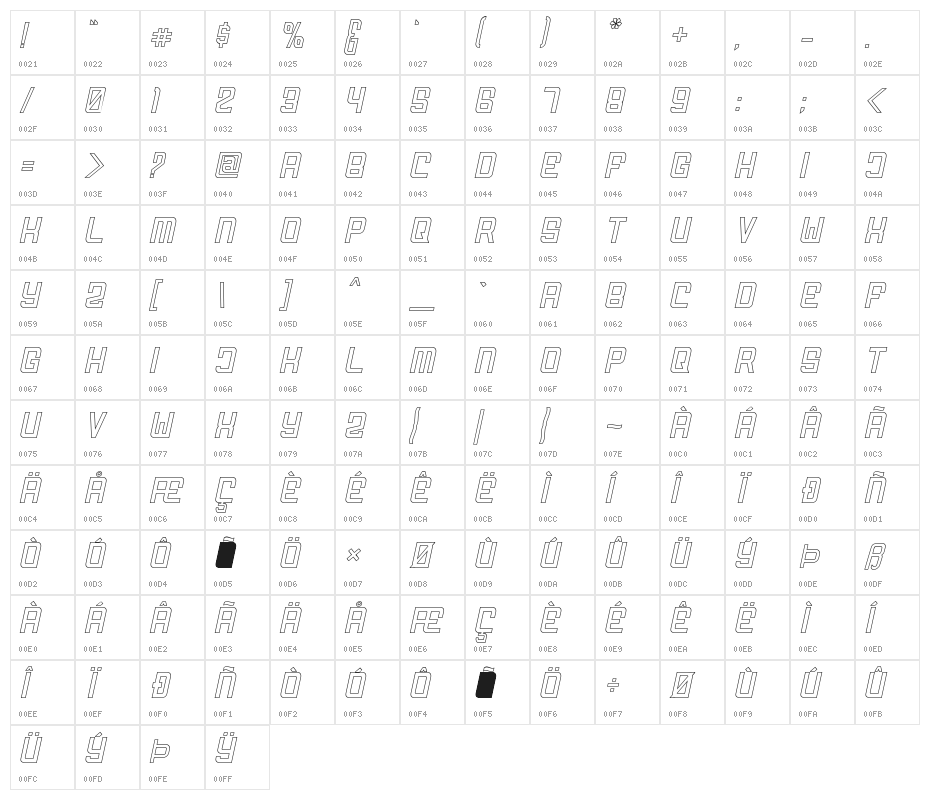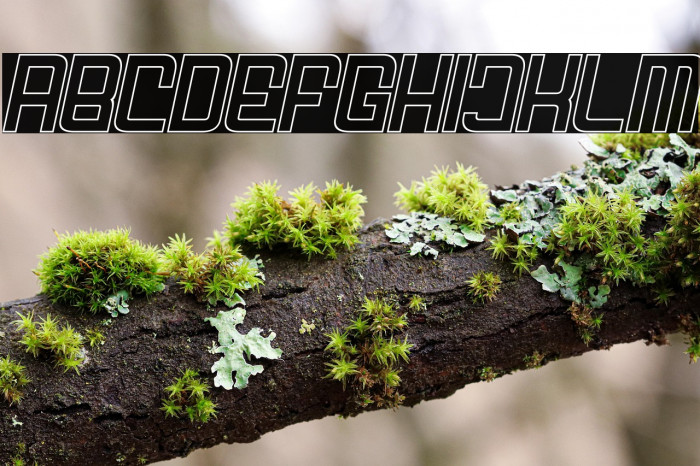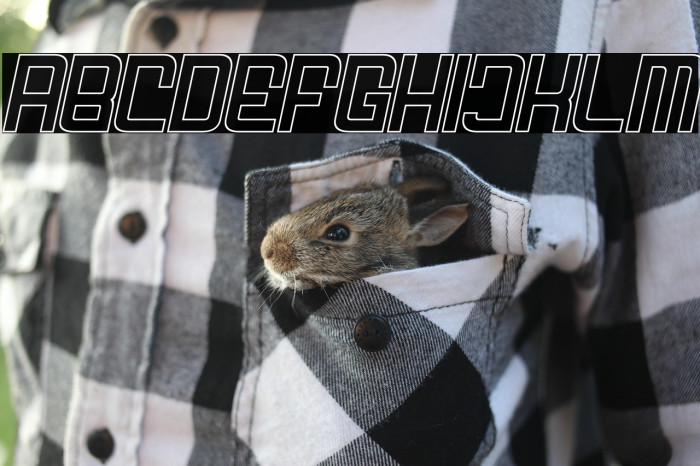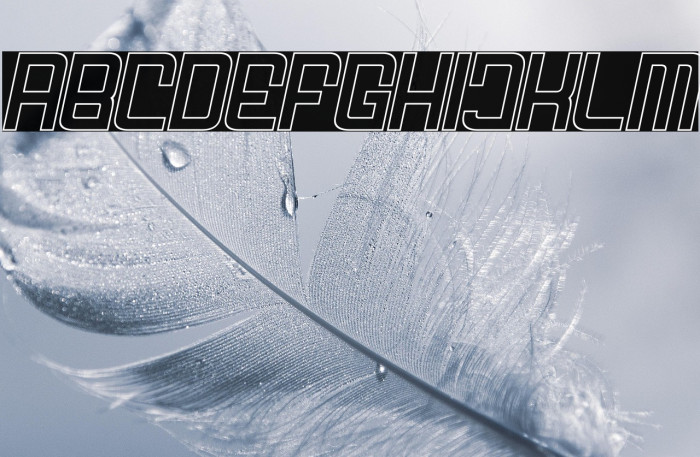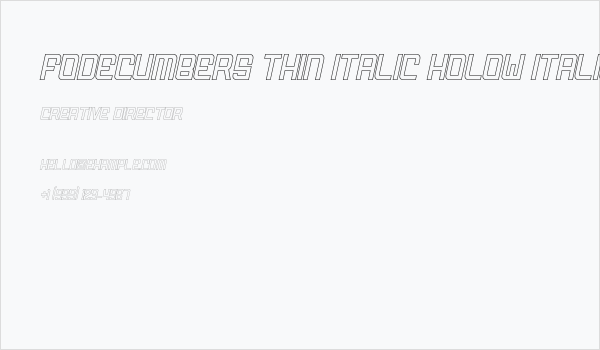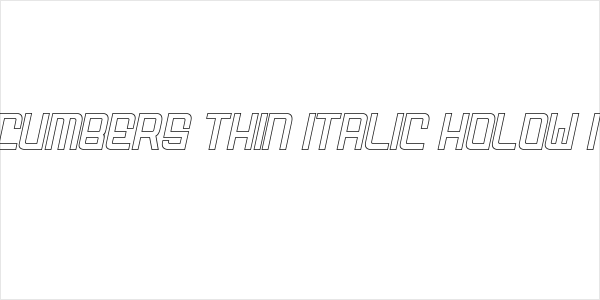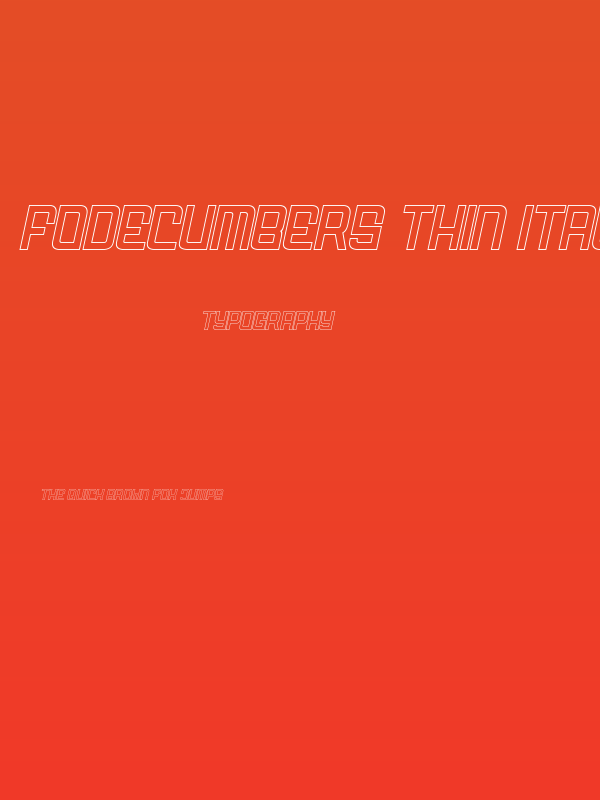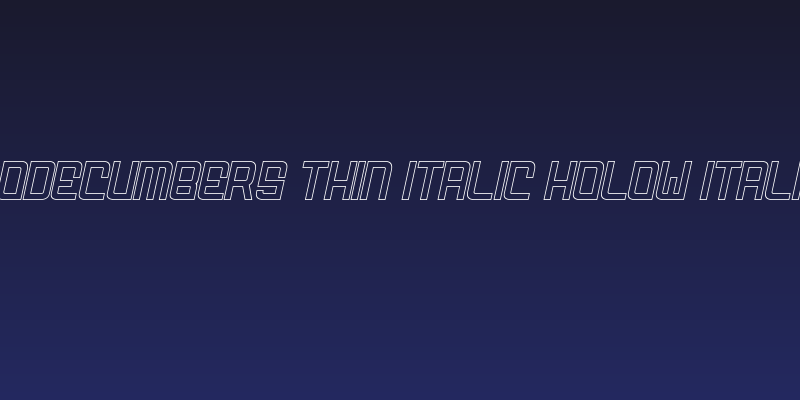
FODECUMBERS THIN ITALIC HOLOW Italic Font
FODECUMBERS THIN ITALIC HOLOW Italic Description
This font features a modern, geometric design with a hollow, outlined style. The characters are italicized, giving them a dynamic and forward-leaning appearance. The thin strokes and open spaces within each letterform create a sense of lightness and elegance. The uppercase and lowercase letters maintain a consistent style, with angular edges and a uniform height. The numerals and special characters follow the same design principles, ensuring a cohesive look across all glyphs. This font's unique style makes it suitable for creative and contemporary projects.
| Proposed Projects | Ideal for futuristic branding, tech-related designs, modern posters, and digital artwork. |